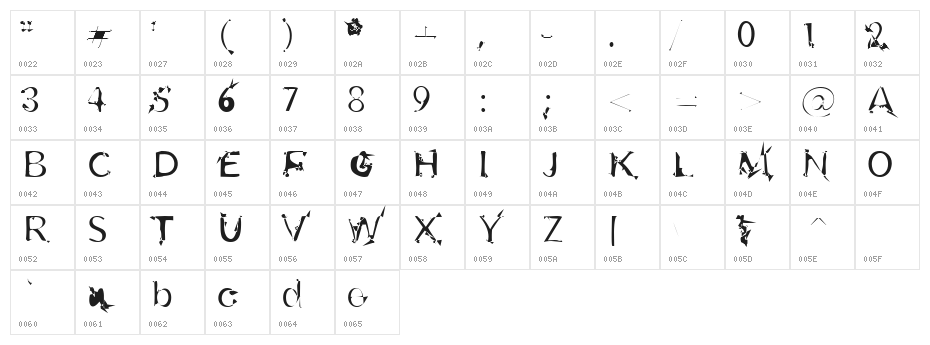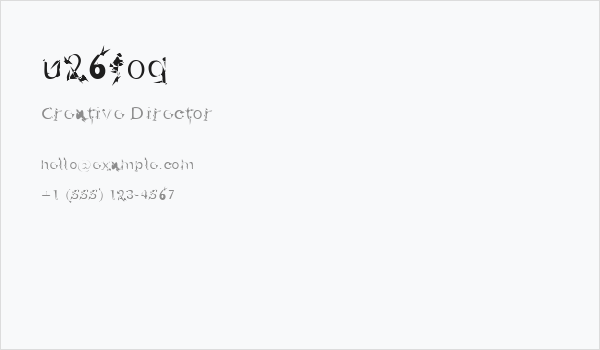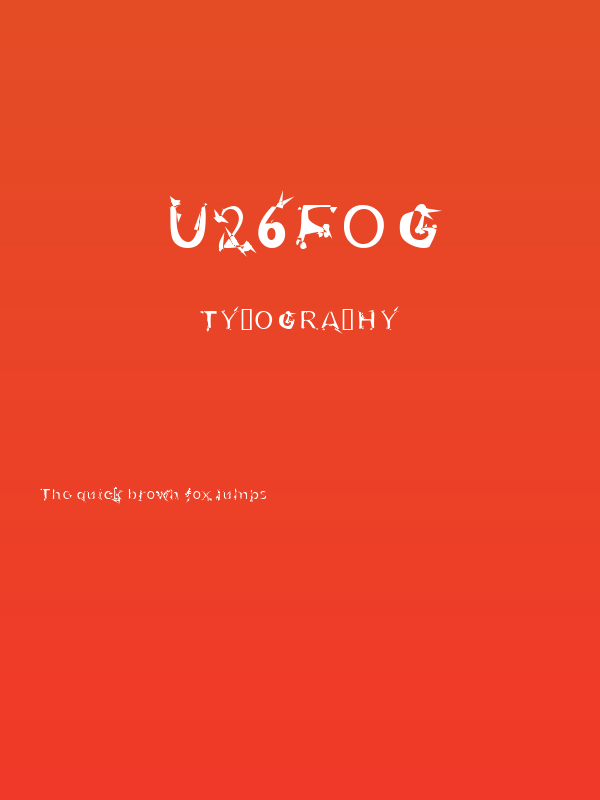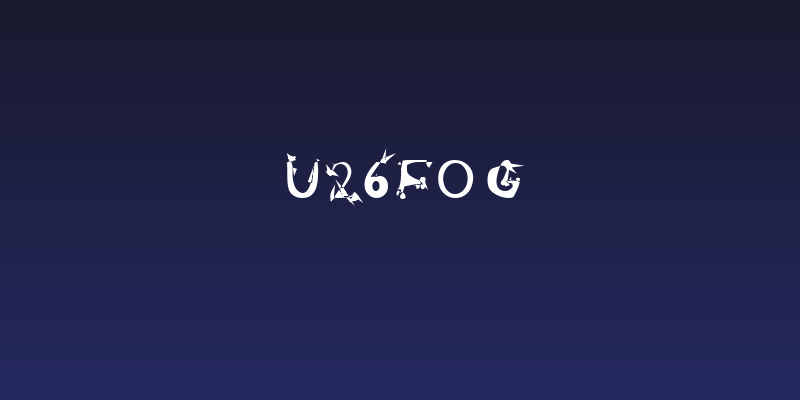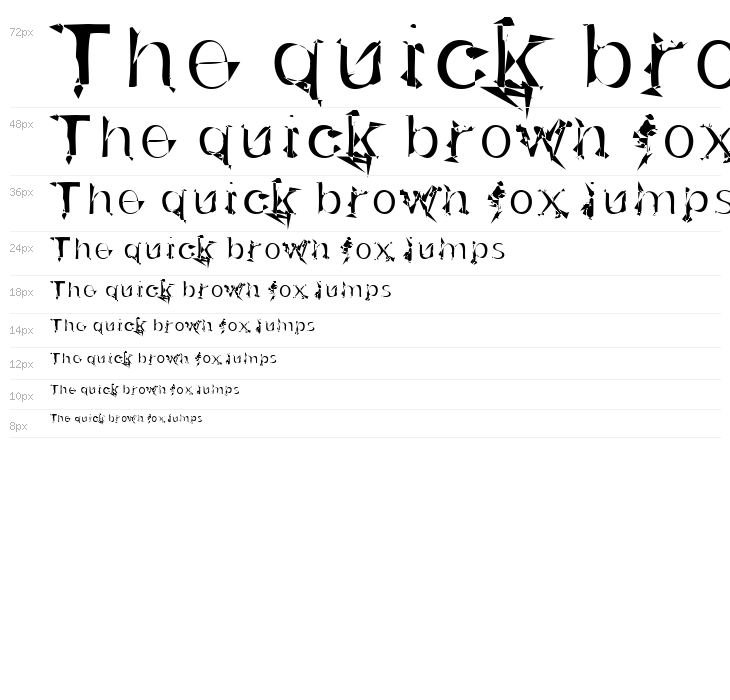
u26fog Font
u26fog Description
This font features a highly decorative and fragmented style, with each character appearing as if it has been shattered into pieces. The design is bold and striking, with sharp angles and irregular shapes that create a sense of chaos and movement. The uppercase and lowercase letters maintain a consistent level of distortion, making the font suitable for artistic and avant-garde projects. The numerals and special characters follow the same fragmented aesthetic, ensuring a cohesive look across all elements. This font is not suitable for body text due to its complex design but can make a strong impact in headlines or artistic compositions.
| Use Case | Headlines, Artistic compositions |
| Proposed Projects | Ideal for album covers, posters, and experimental design projects. |